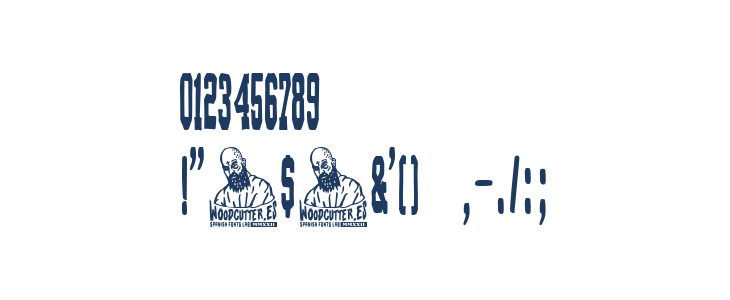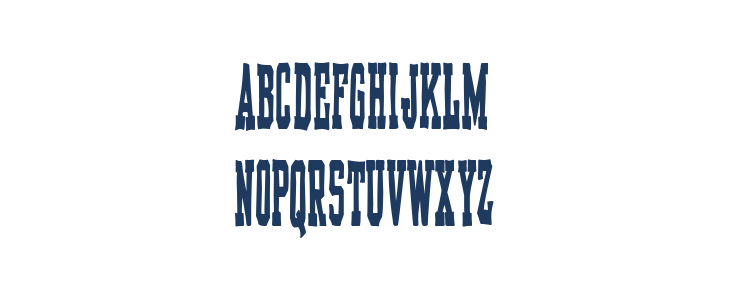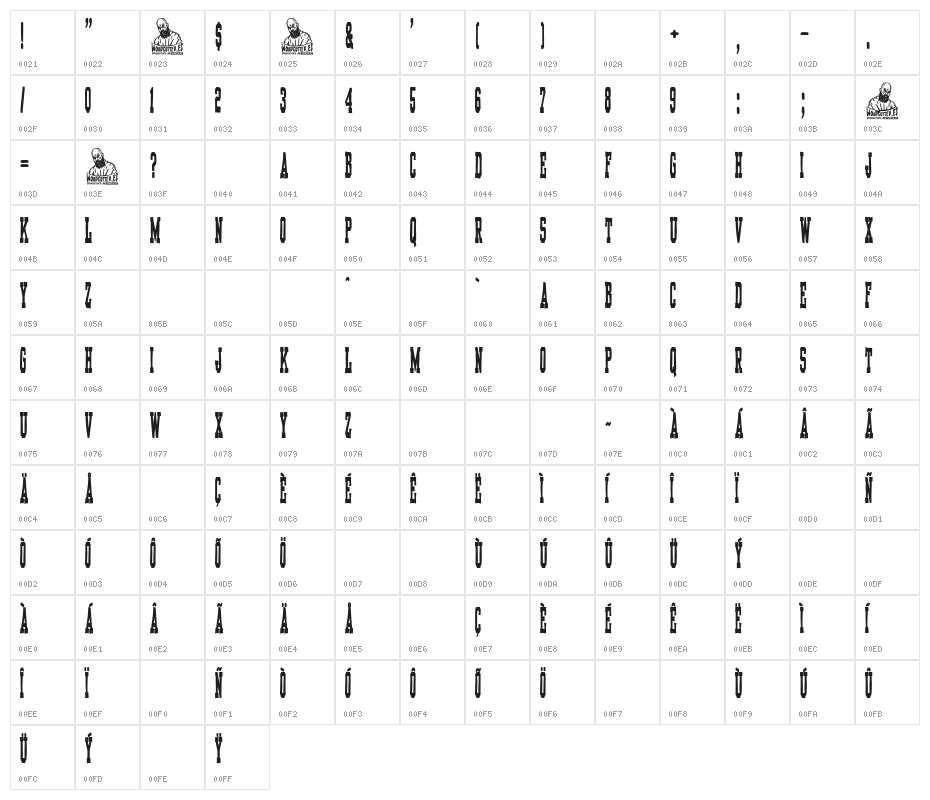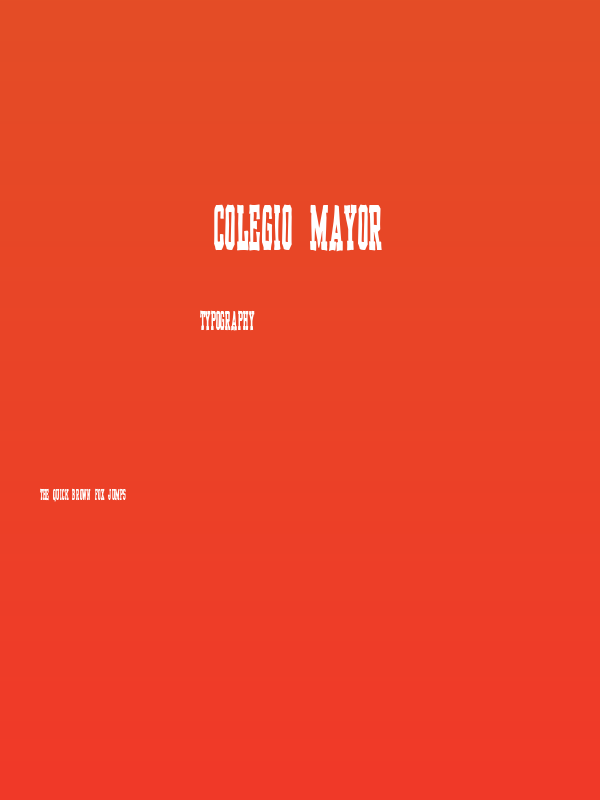
Colegio Mayor Font
Colegio Mayor Description
A bold, condensed display font with slab serif characteristics and a rugged, woodcut-inspired texture. The letterforms are tall with pronounced serifs and uneven edges, giving a handcrafted, vintage feel. The spacing is tight and the overall appearance is striking and decorative.
| Overall Style | Vintage, Decorative, Western |
| Proposed Projects | Posters, event flyers, western-themed branding, signage, book covers, and logos. |